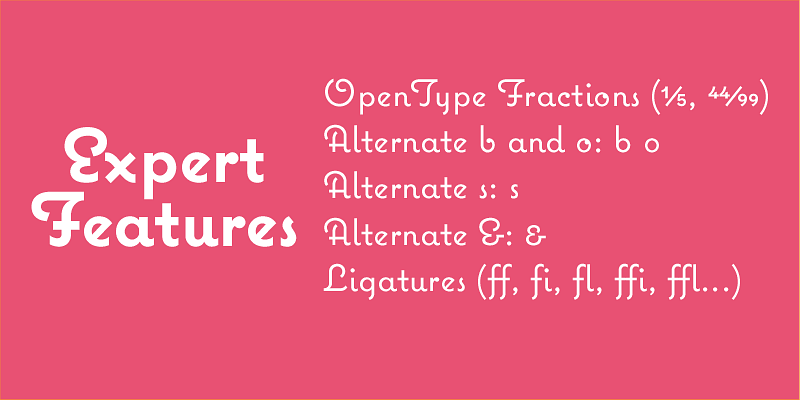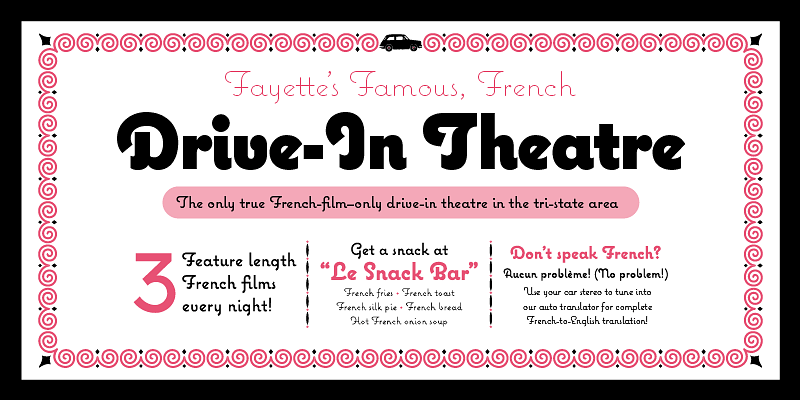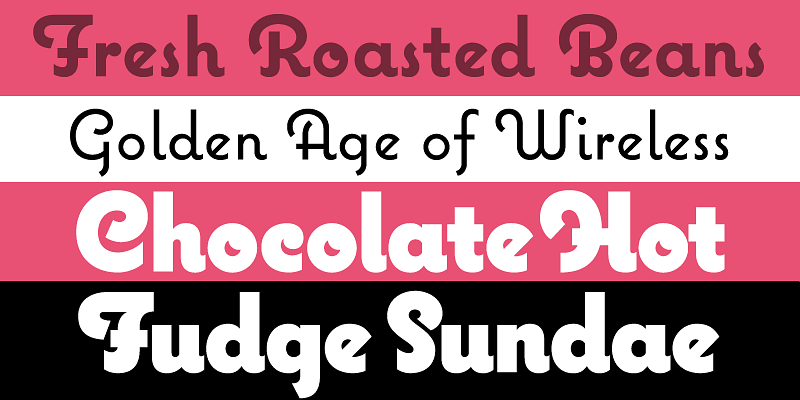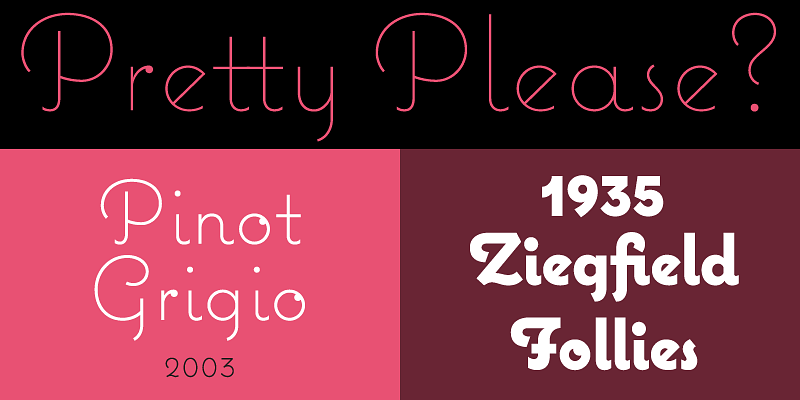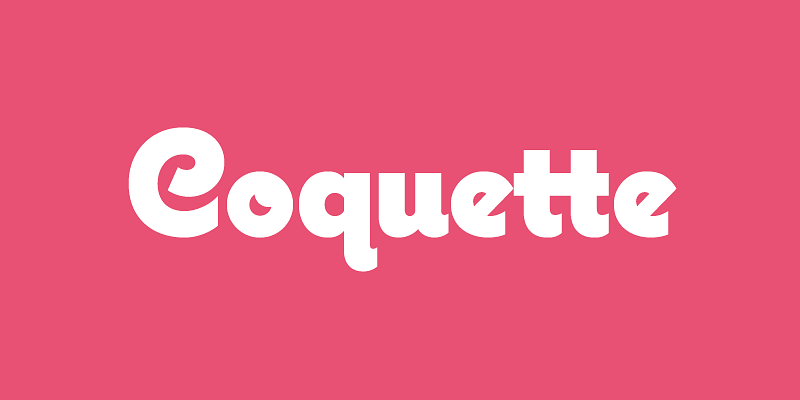
Coquette (2001, 2017) is an unconnected upright script, a sort of hybrid between French scripts, such as Typo Upright, and 1930s-era geometric sans serifs, such as Kabel. The idea for this typeface came to me in the early ’90s while I was designing a logo. It took me several tries over several years to get it to look the way I wanted it to, a process that taught me a lot about type design and drawing letters. Since its release, it’s become one of my more popular fonts, which is very gratifying since it’s my favorite of all the fonts I’ve designed. In 2017, I expanded the original three weights (Light, Regular, and Bold) to six with the addition of Thin, Extrabold, and Black. I also added several alternate characters (lowercase b, o, s, and ampersand) as well as arbitrary fractions, superscript, a full set of f-ligatures, and a bunch of math characters which were not included in earlier versions.